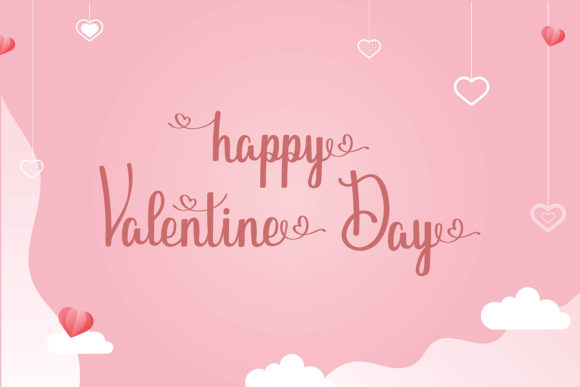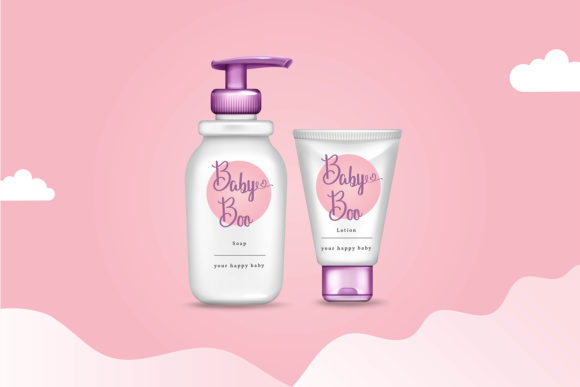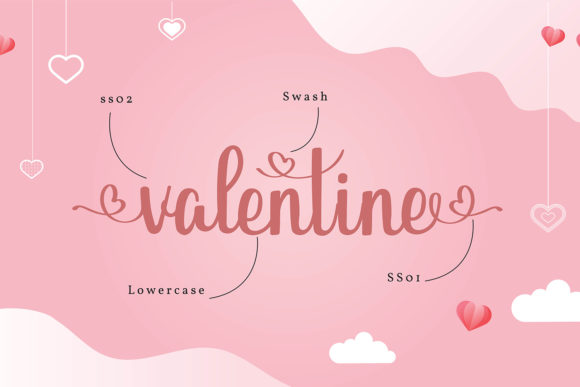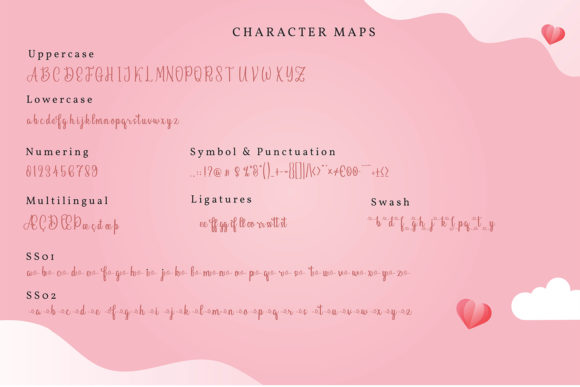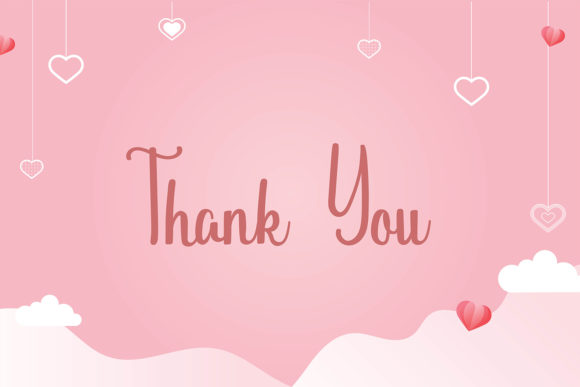
Auranthy Font: The Sweet and Romantic Handwritten Font for Designers and Crafters
Are you a designer or crafter looking for a font that exudes sweetness and romance? Look no further than Auranthy Font! This beautiful handwritten font is perfect for a variety of projects, from logos and wedding invitations to headings, t-shirts, and more.
What is Auranthy Font?
Auranthy Font is a carefully crafted handwritten font that is designed to add a touch of elegance and romance to any project. Its sweet and flowing lines make it perfect for designs that require a personal and whimsical touch.
What Can I Use Auranthy Font For?
The versatility of Auranthy Font is one of its standout features. This font can be used for a wide range of purposes, including:
- Logos: Create a beautiful and unique logo for your business or brand with Auranthy Font.
- Wedding Invitations: Make your wedding invitations truly special with this romantic font.
- Headings: Add a touch of elegance to your headings and titles with Auranthy Font.
- T-shirts: Design custom t-shirts with Auranthy Font for a unique and eye-catching look.
- Letterhead: Create professional-looking letterhead with Auranthy Font.
- Signage: Use Auranthy Font for signage that is both clear and visually appealing.
- Labels: Design labels that stand out with Auranthy Font.
- News: Use Auranthy Font for news headlines and articles for a unique look.
- Posters: Create stunning posters with Auranthy Font.
- Badges: Design custom badges with Auranthy Font.
What Makes Auranthy Font Special?
Auranthy Font is PUA encoded, which means that you can access all of the glyphs and swashes with ease. This makes it easy to customize your designs and add unique touches that make your project stand out.
Why Choose Auranthy Font?
There are many reasons why designers and crafters choose Auranthy Font for their projects. Here are just a few:
- Unique and elegant design: Auranthy Font has a unique and elegant design that is sure to impress.
- Versatile: Auranthy Font can be used for a wide range of projects, making it a great addition to any designer’s toolkit.
- Easy to use: Auranthy Font is PUA encoded, making it easy to access all of the glyphs and swashes.
- High-quality: Auranthy Font is a high-quality font that is designed to produce clear and crisp results.
Tips for Using Auranthy Font
Here are a few tips for using Auranthy Font in your designs:
- Experiment with different sizes and colors: Auranthy Font looks great in a variety of sizes and colors, so don’t be afraid to experiment.
- Pair with other fonts: Auranthy Font pairs well with other fonts, so try combining it with other fonts for a unique look.
- Use swashes and glyphs: Auranthy Font has a range of swashes and glyphs that can be used to add a personal touch to your designs.
Auranthy Font is a beautiful and versatile handwritten font that is perfect for designers and crafters. Its sweet and romantic design makes it ideal for a wide range of projects, from logos and wedding invitations to headings, t-shirts, and more. With its PUA encoding and high-quality design, Auranthy Font is a great addition to any designer’s toolkit.